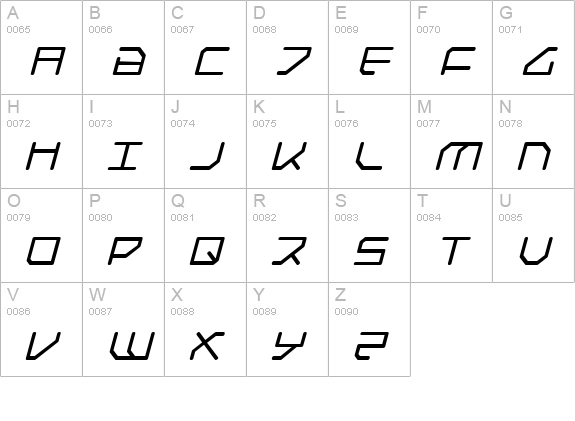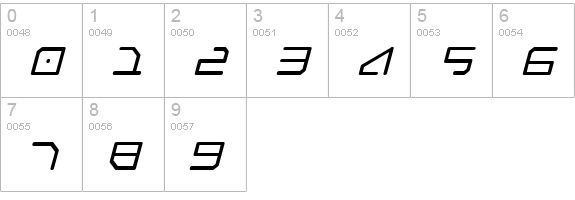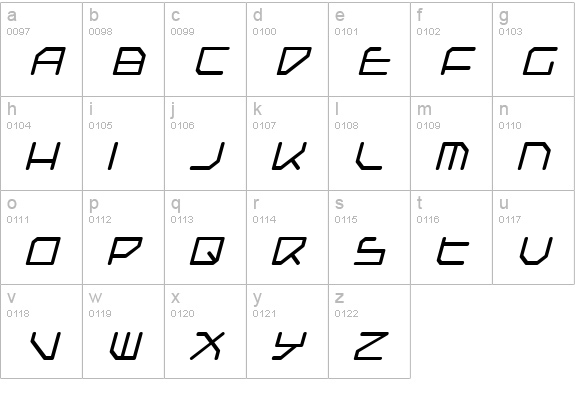
Federapolis Italic is a distinctive, italic variant in the Federapolis typeface family \xE2\x80\x94 well suited to design and typography projects.
Federapolis Italic font is a modern and elegant typeface that exudes sophistication and style. With its sleek and slanted design, this font is perfect for adding a touch of class to any project. The italicized letters convey a sense of movement and dynamism, making Federapolis Italic font an excellent choice for editorial pieces, branding, and signage. What sets Federapolis Italic font apart is that it is available for free download at FontsMarket.com. This means that you can easily access this high-quality font without any cost, making it a valuable addition to your design toolkit. Whether you are a graphic designer, blogger, or student, Federapolis Italic font offers a versatile and eye-catching option for your creative projects. Don't miss out on the opportunity to enhance your designs with Federapolis Italic font - download it for free today at FontsMarket.com and elevate your typography game!